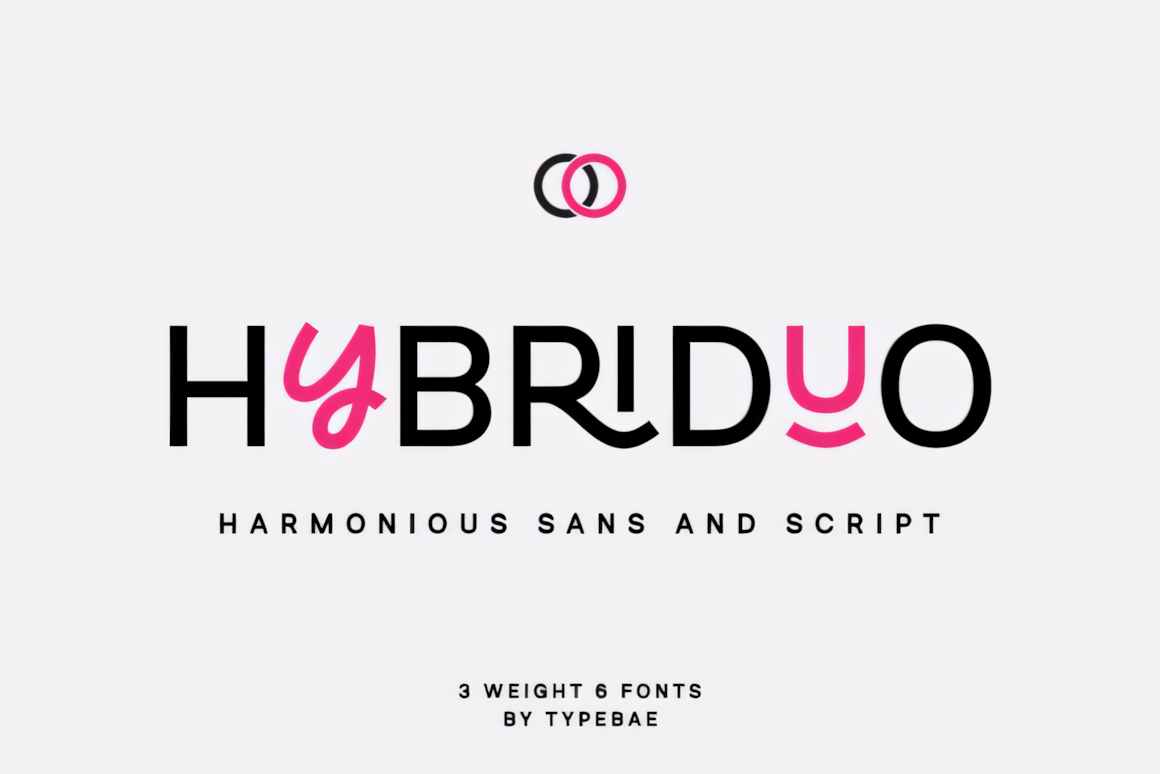
Hybriduo is a sophisticated font that is a combination between Sans serif and Script font. Unquestionably, it is perfectly balanced and has been designed in such way that it could be used both as a standalone font and in conjunction with others. It can be used by placing it between the Sans letters, using the beautiful Sans ligatures or using variable font and set those conspicuous and lively small caps.
The followings are the below features which make this font more attractive eye-catchy: You get 6 fonts styles that range from lowercase and uppercase and also three weights of the font.
Hybriduo Sans Serif Font